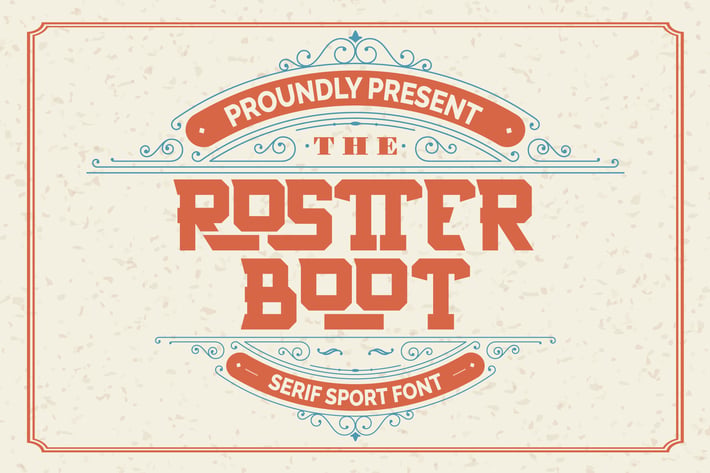
Rostter Boot | Serif Sport Font
Rostter Boot | Serif Sport Font with a calligraphy style, So beautiful on invitation like greeting cards, branding materials, business cards, quotes, posters, and more!